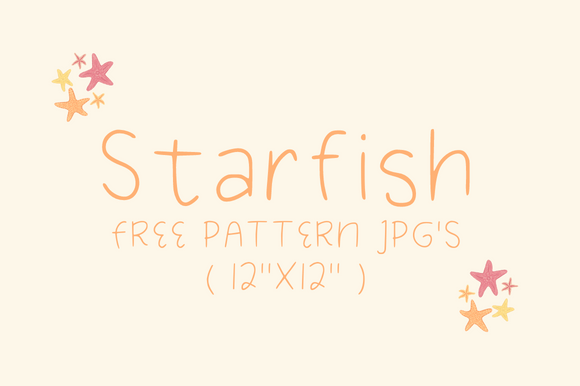
Are you looking for the perfect font to add a touch of elegance and sophistication to your project? Look no further than Starfish Font! Created by sweetsparkles, this display font is the best font for quotes in Word, and is guaranteed to catch the eye with its stunning and attractive design.
Crafted with precision and care, each letter in Starfish Font exudes charm and sophistication, making it the perfect choice for any professional project. Whether you're creating branding materials, signage, or print materials, Starfish Font is the must-have addition to your design toolkit.
With its graceful curves and unique design, Starfish Font is sure to elevate your project to new heights. Its captivating style will capture the attention of your audience, leaving a lasting impression that is sure to be remembered.
Don't settle for a boring font that fails to make an impact. Choose Starfish Font and add a touch of class and elegance to your project today!